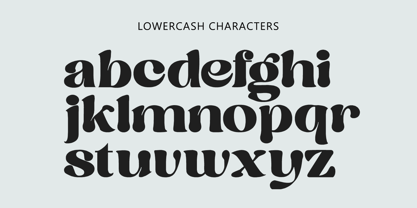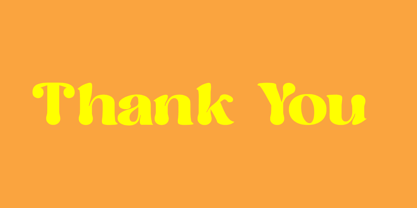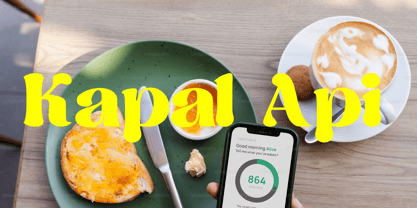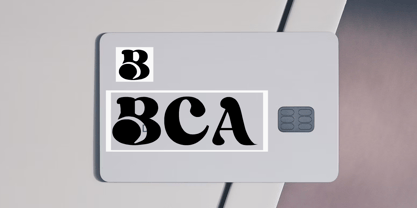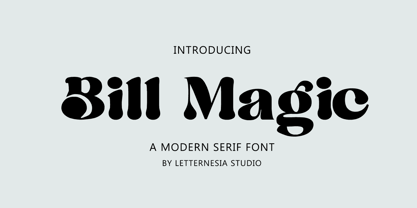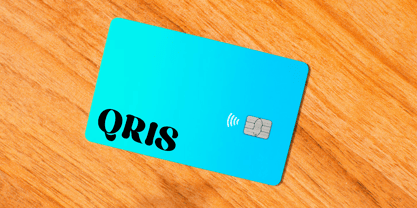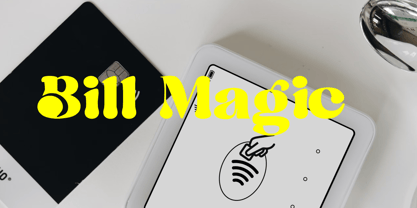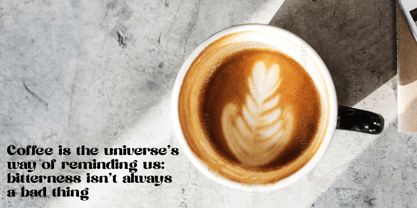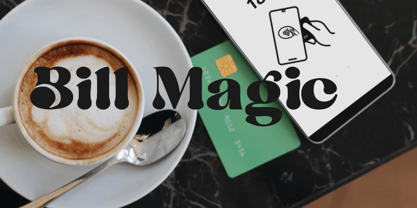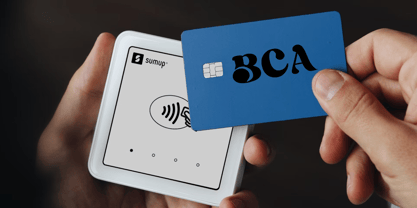
Bill Magic
by Letternesia studio
The Bill Magic Font Family was designed by Ta Siyo and published by Letternesia studio. Bill Magic contains 1 styles. More about this family
Bill Magic is a bold and whimsical display font inspired by the charm of stage illusions and the elegance of old-school magic shows. With its playful curves and enchanting letterforms, this font adds a touch of wonder to any design.Bill Magic brings a sense of mystery and delight to your typography. Whether you're conjuring up a magical logo or crafting a headline that sparkles with imagination, this font casts the perfect visual spell.
Designers: Ta Siyo
Foundry: Letternesia studio